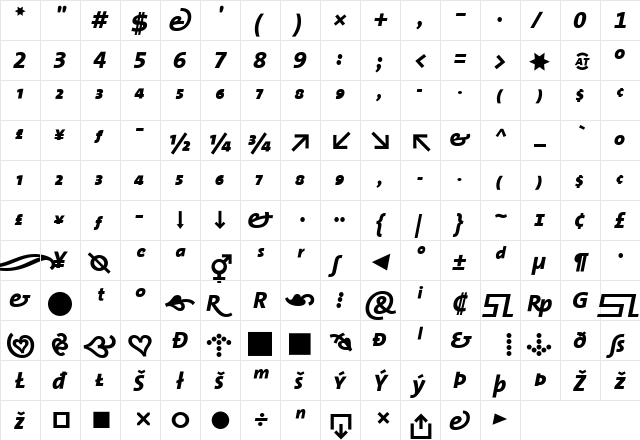
The Sans Extra Bold- Italic Font Preview
Rendered live in your browserThe Sans Extra Bold- Italic Font Details
Design Context for The Sans Extra Bold- Typeface
The Sans Extra Bold- takes a measured approach to typography — its balanced proportions and neutral character make it a reliable workhorse for both digital and print work. Its italic angle brings a sense of urgency and motion to the letterforms. The heavy weight commands attention and anchors typographic hierarchies.
Pro Tip: Use The Sans Extra Bold- for emphasis, pull quotes, and subheadings where its slanted energy can add rhythm to the layout.